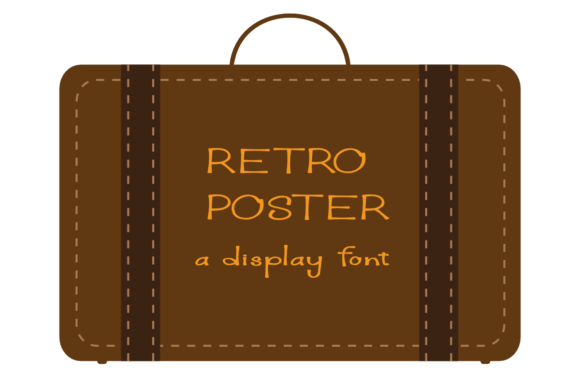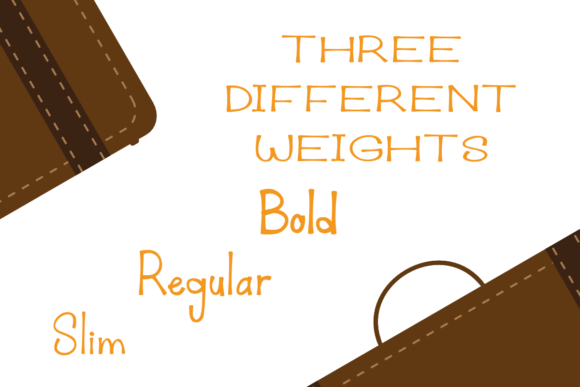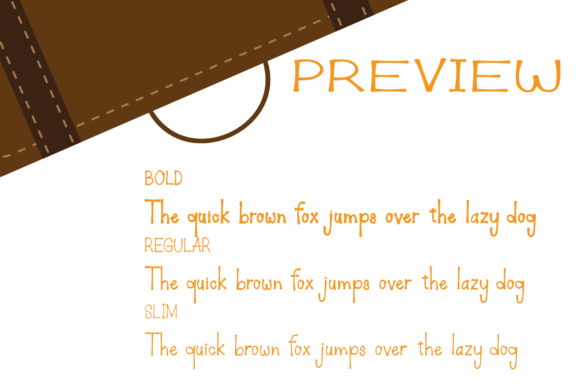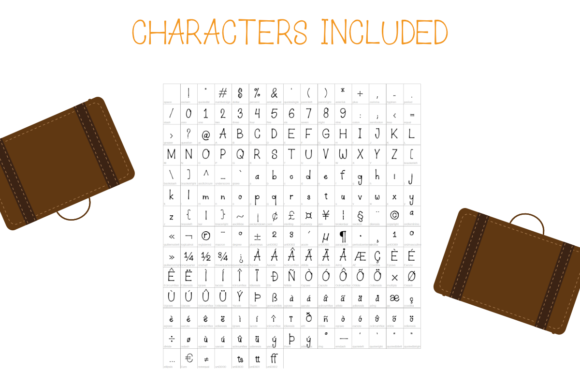
HomePersonal Use FreeRetro Poster Personal Use Free Retro Poster FacebookTwitterPinterestWhatsApp 1 of 4 About Retro Poster Font Retro Poster is a simple, natural and friendly display font. No matter the topic, this font will be an incredible asset to your fonts’ library, as it has the potential to elevate any creation. DOWNLOAD NOW People also explored Wedding Day Font Morning Font Hardline Full Version Monothink Font Rexbeuz Font Sandwich Font Tom Harvey Font Hoverunit Chanting Font 165 0 TagsRetro Poster Font Previous articleCasualNext articleThe Lima LEAVE A REPLY Cancel reply Comment: Please enter your comment! Name:* Please enter your name here Email:* You have entered an incorrect email address! Please enter your email address here Website: Save my name, email, and website in this browser for the next time I comment. Personal Use Free Dead Block Personal Use Free Read more about this font Chandella Personal Use Free Read more about this font Calega Personal Use Free Read more about this font Handayani Personal Use Free Read more about this font BLOG Using Fonts in Digital Marketing: Tips to Strengthen Your Brand Identity In the realm of digital marketing, every visual element plays a crucial role in shaping a brand's identity, and fonts are no exception. The... Best Fonts for T-Shirt Design – Top 2025 Picks Free Fonts Risk: Why Free Fonts Can Be Dangerous for Designers Where to Buy American Fonts Online in 2024